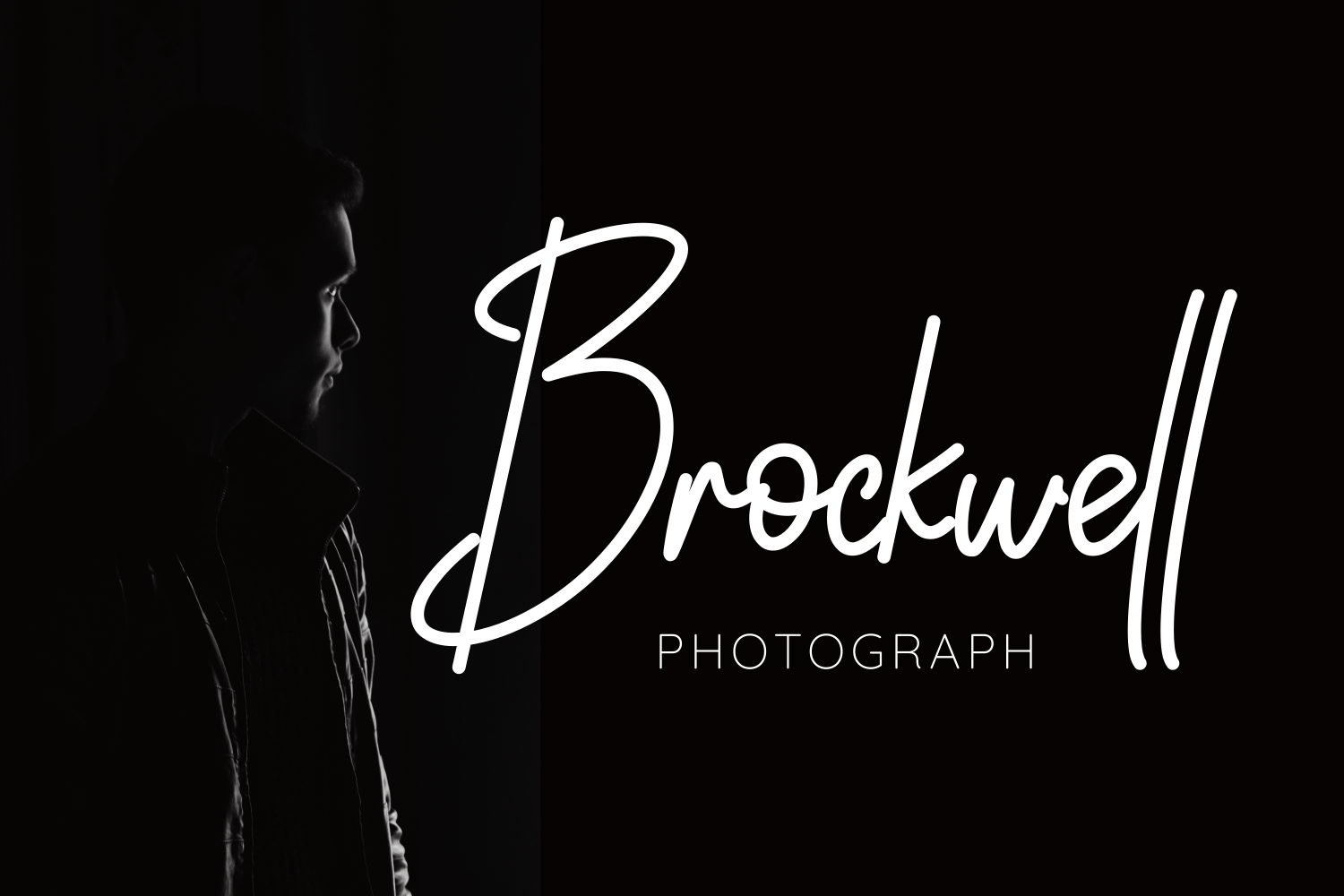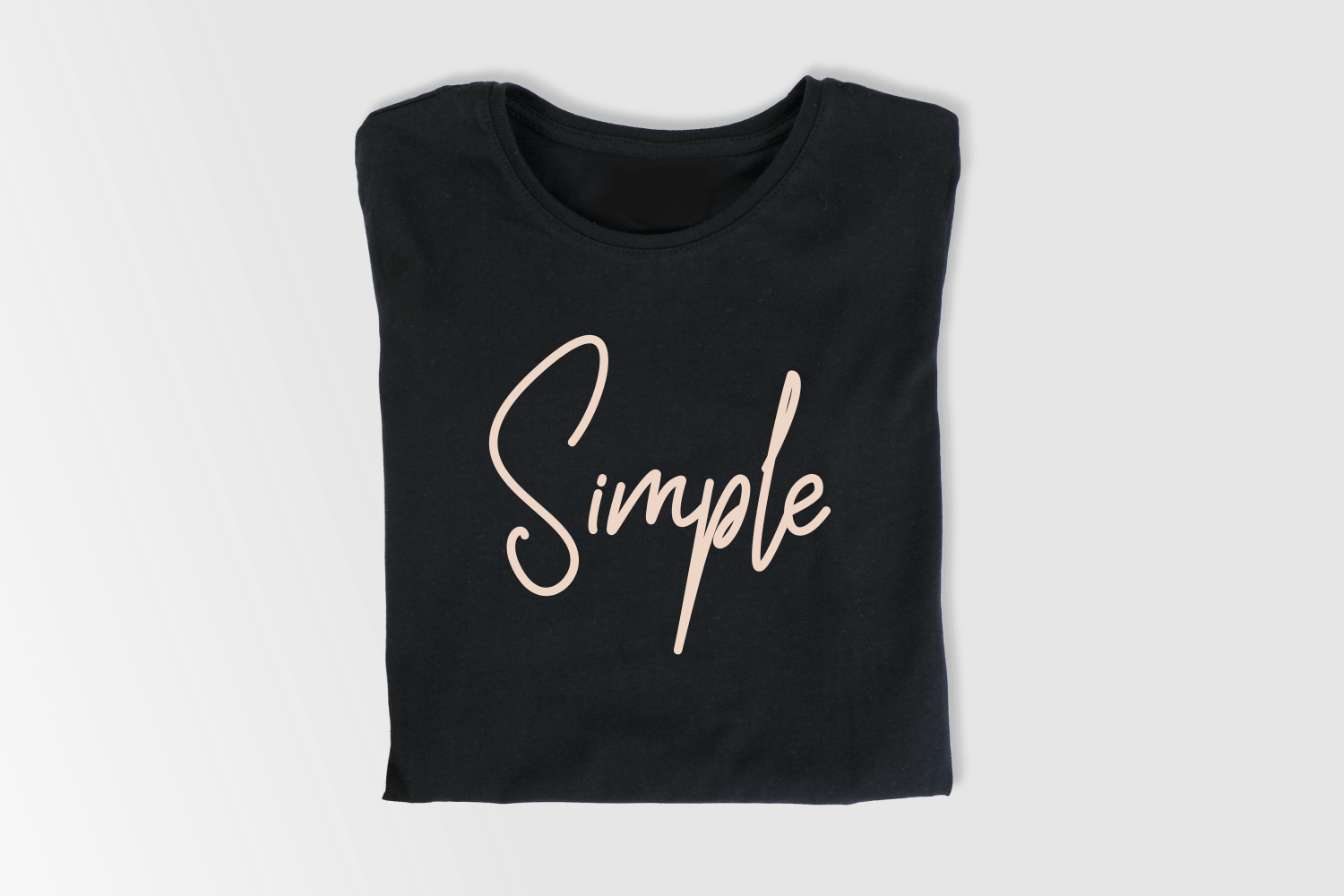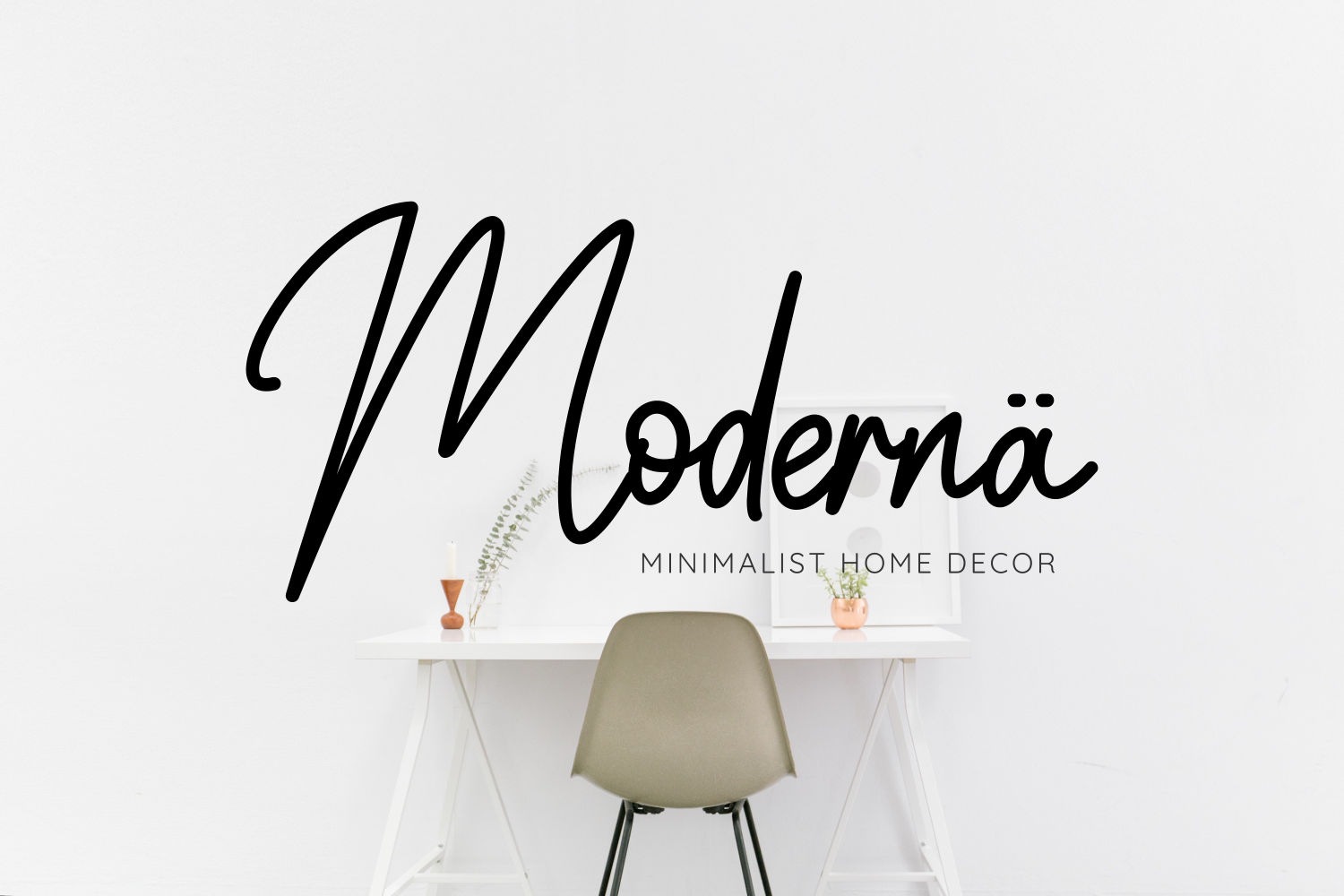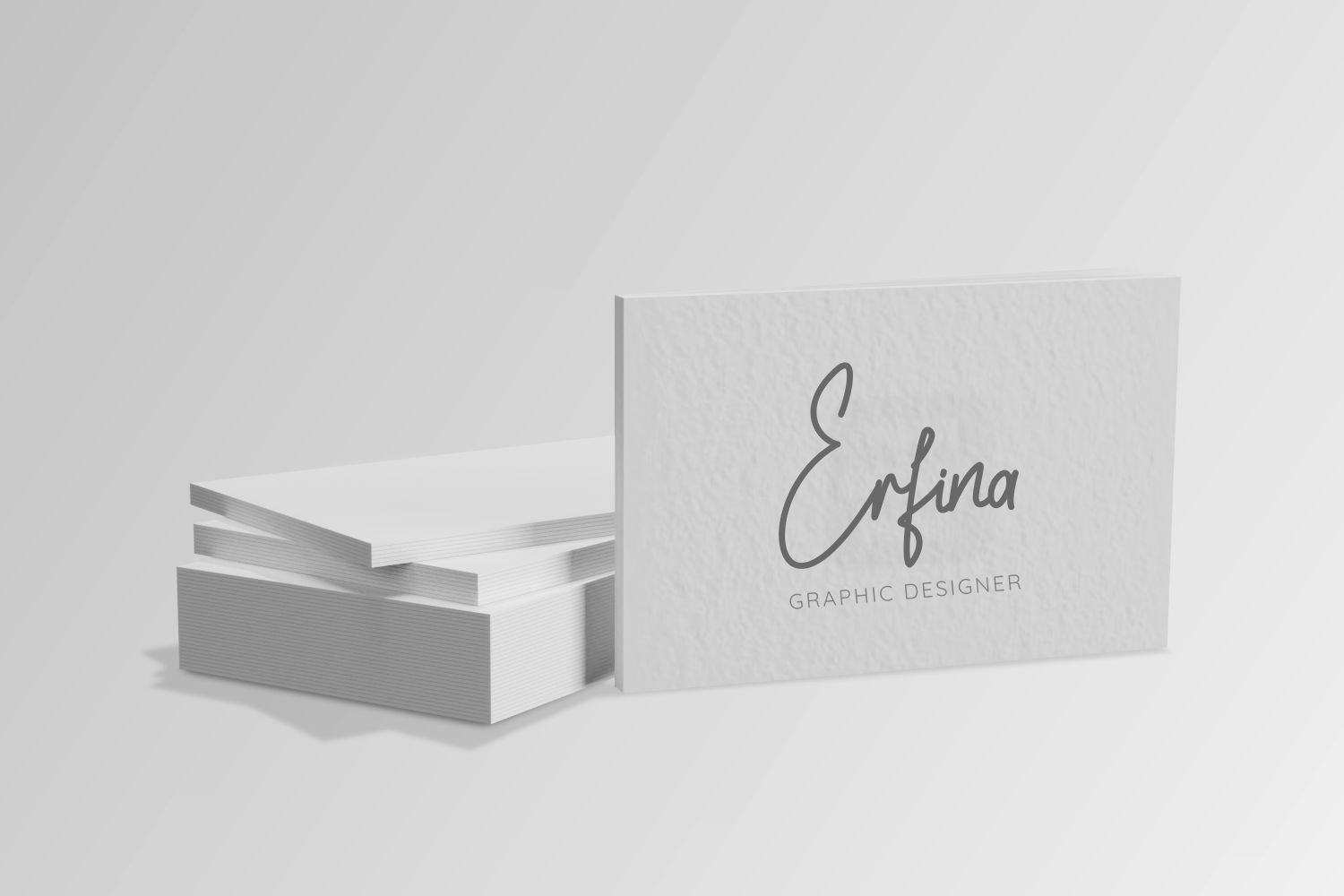
Santhory Stylish Handwritten Font – It has a modern style that gives off an elegant and simple impression. Very suitable for use in various design projects, such as quotes, logotype, greeting cards, t-shirt designs, stickers and others.
Santhory support in various languages: Afrikaans, Albanian, English, Filipino, French, Friulian, Galician, German, Indonesian, Irish, Italian, Norwegian Norwegian, Spanish, Swedish, Swiss German, and many others.